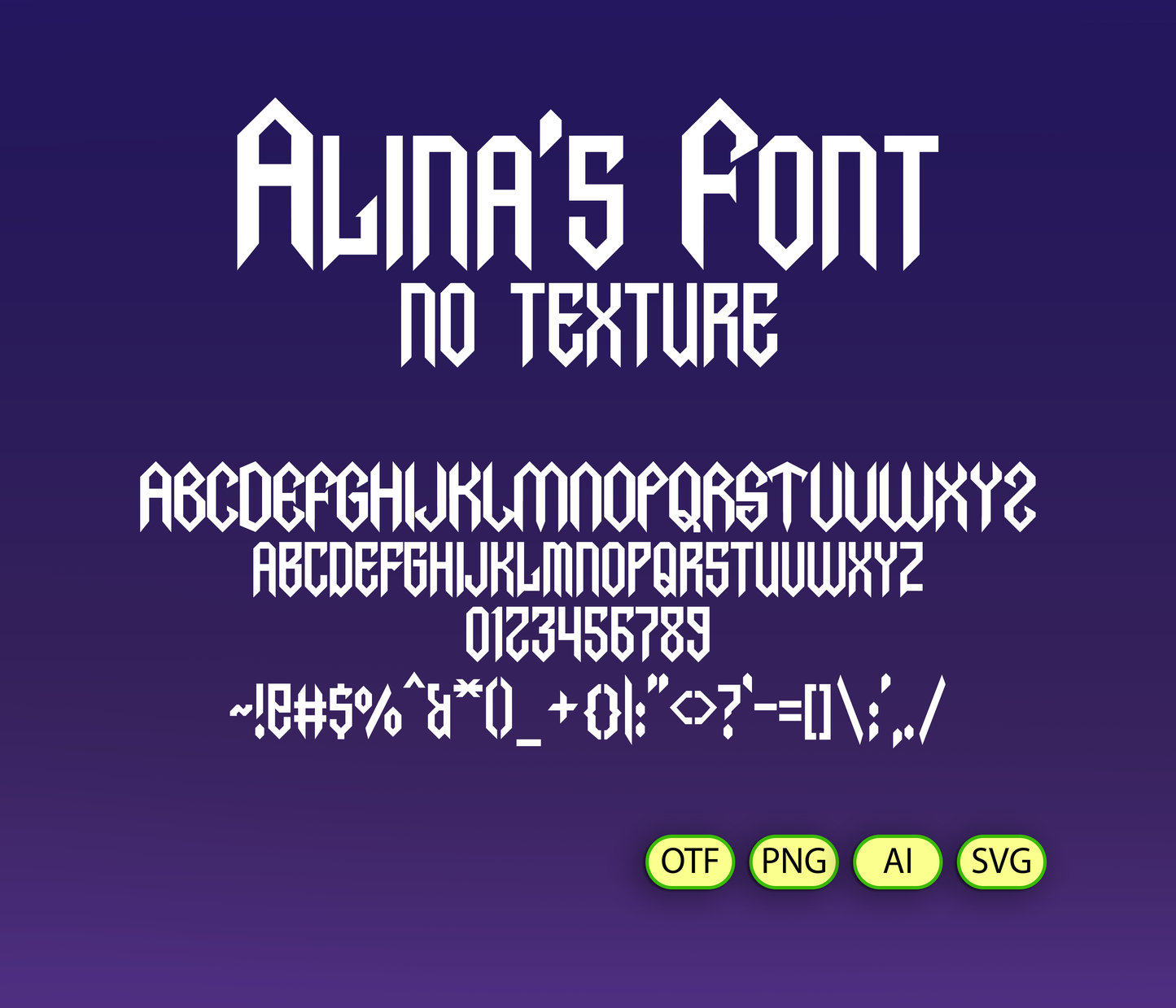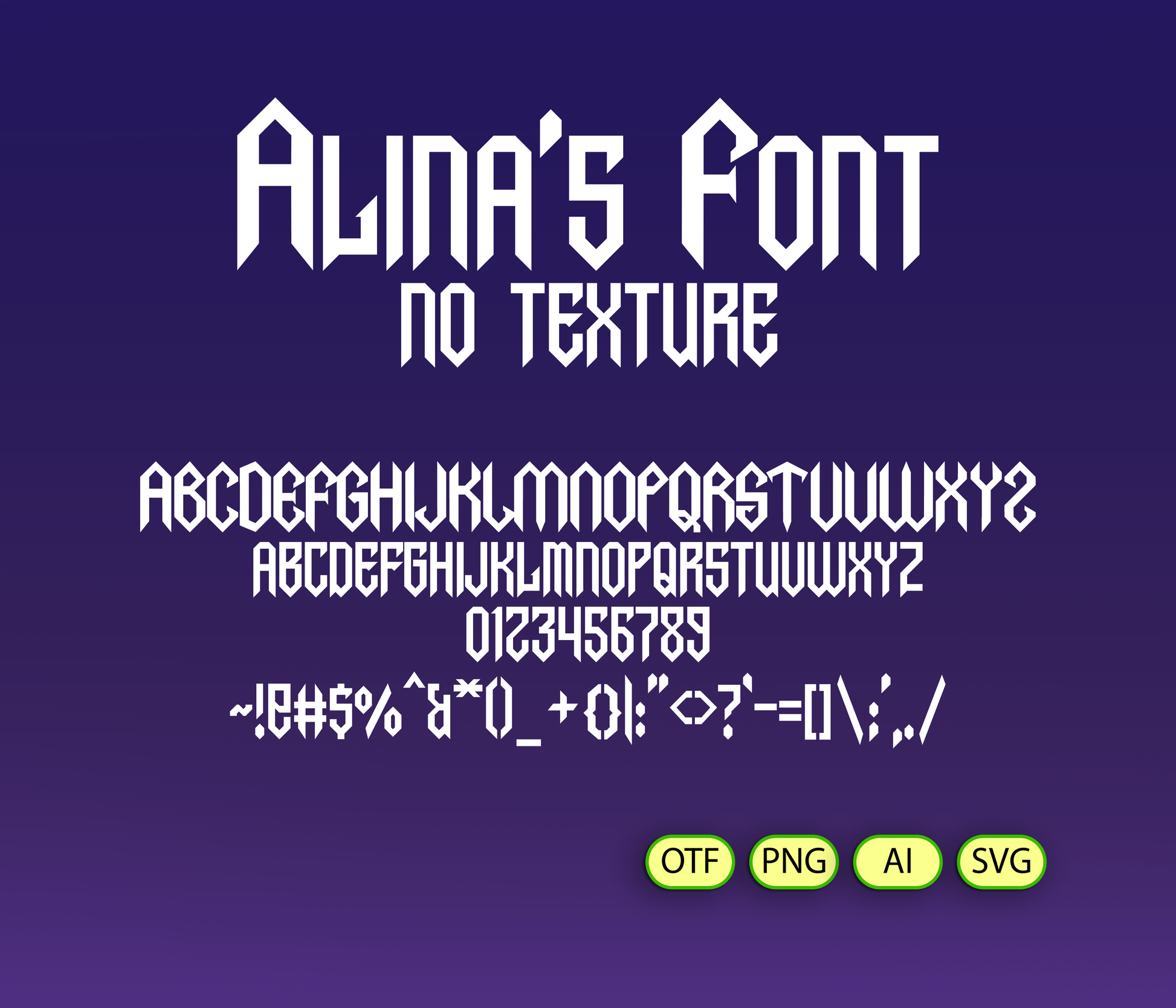
Guardians Awaken Movie Font Textured
Guardians Awaken Bundle Font: Inspired by Legendary Protectors
Step into the dark and mystical world with our specially designed Guardians Awaken font, capturing the essence of an iconic series. Perfect for fans, event planners, and designers, this font brings the gothic and heroic spirit to your projects. Whether creating event invitations, themed merchandise, or digital content, our Guardians Awaken font ensures your projects resonate with the epic and mysterious nature of legendary protectors.
Our Guardians Awaken-inspired font features bold, angular lines and intricate, gothic details reflecting the strength and mystique of ancient stone warriors. This versatile font is ideal for:
- Event Invitations: Dramatic invites for gothic-themed parties, fantasy events, or screenings.
- Merchandise Design: T-shirts, posters, and accessories capturing the essence of legendary guardians.
- Digital Media: Striking headers and graphics for websites, blogs, and social media.
- Educational Materials: Presentations, worksheets, and content focused on mythology, gothic architecture, or storytelling.
- Personal Projects: Add ancient power to scrapbooking, DIY crafts, or home decor.
Our Guardians Awaken font brings the gothic and heroic spirit to your designs. Ready to add a touch of ancient power to your projects? This font is your key.